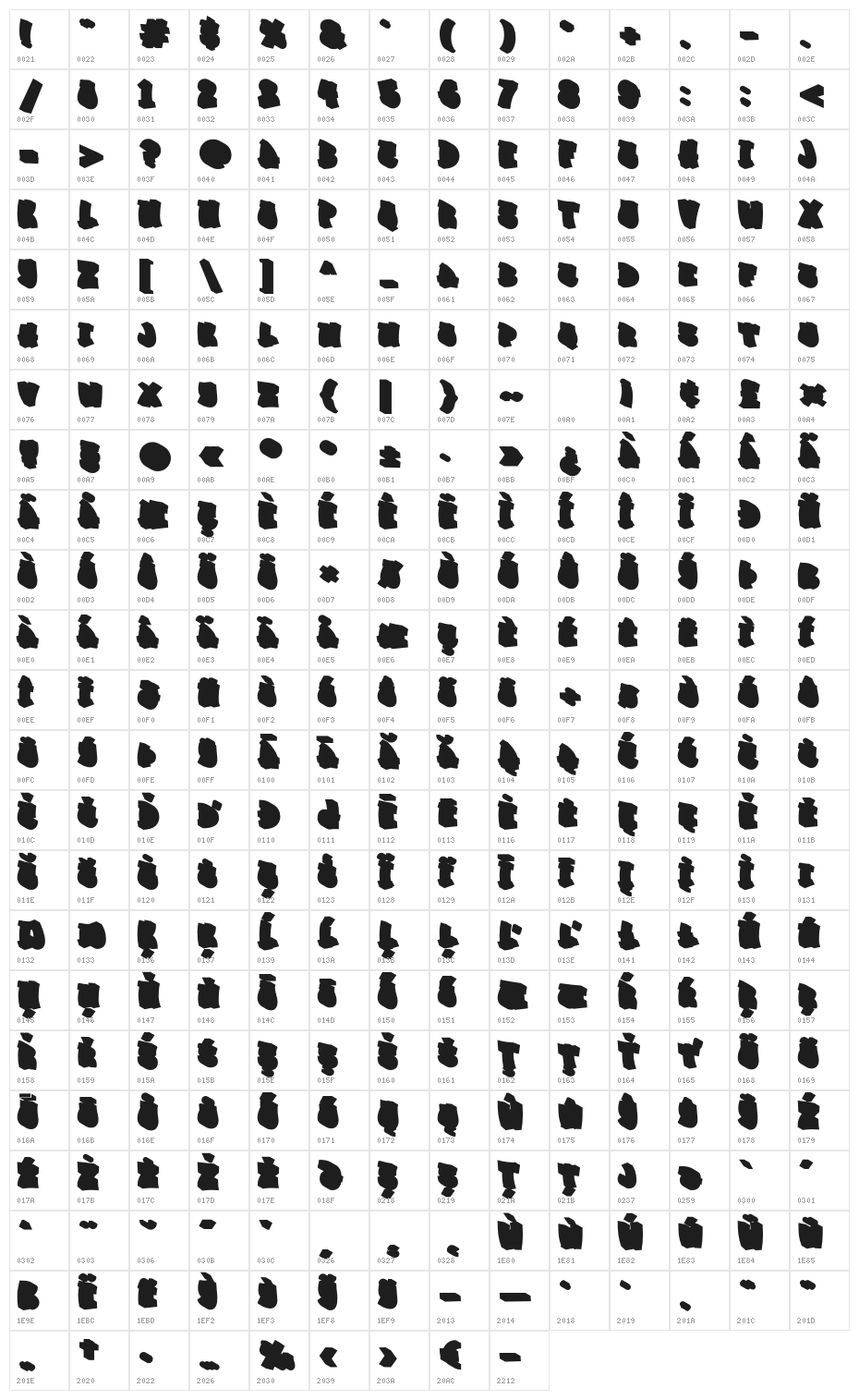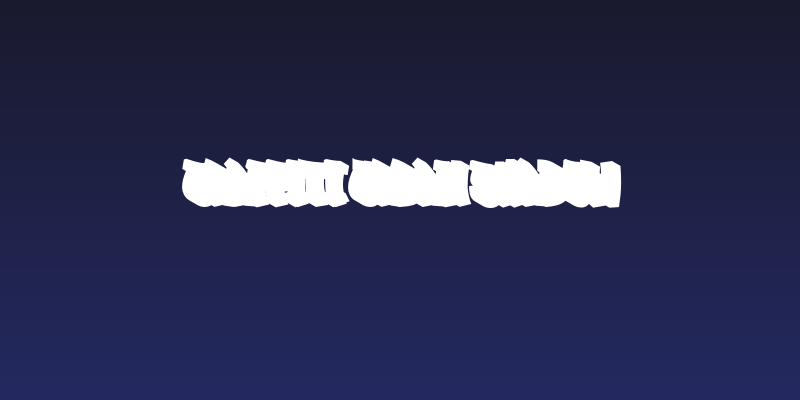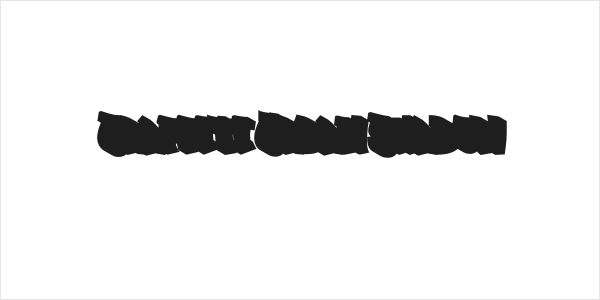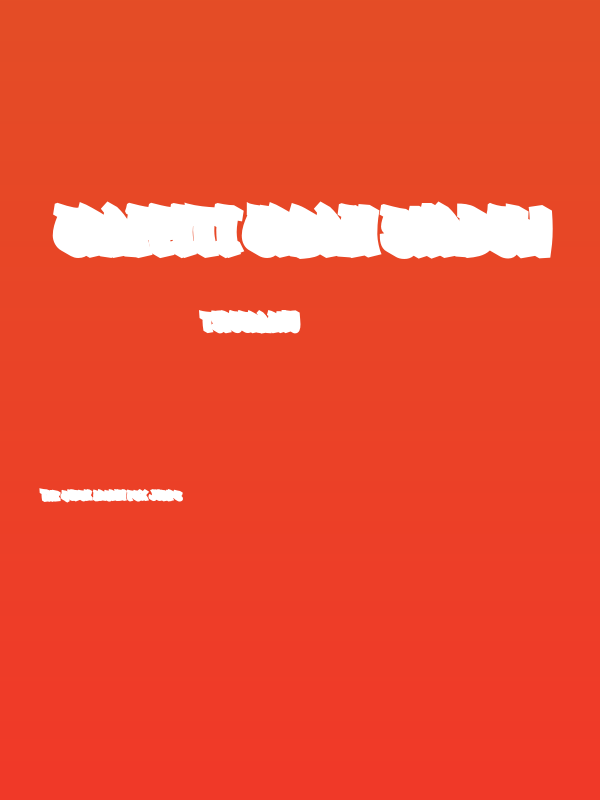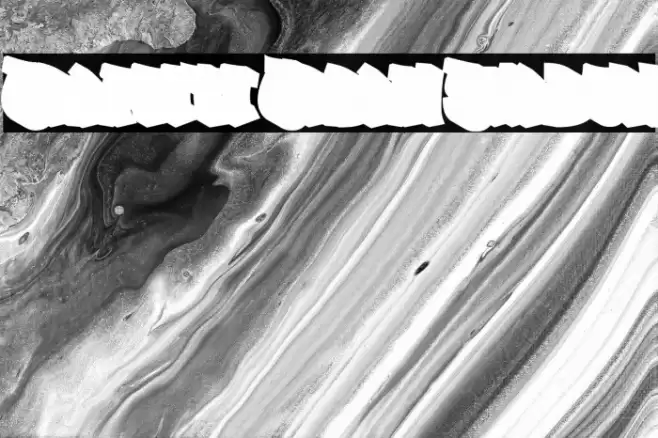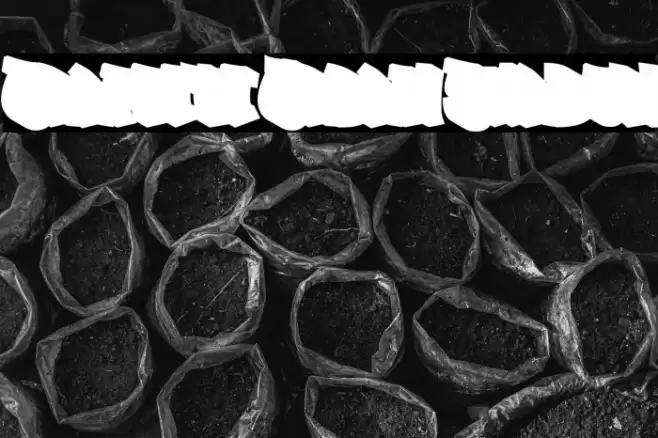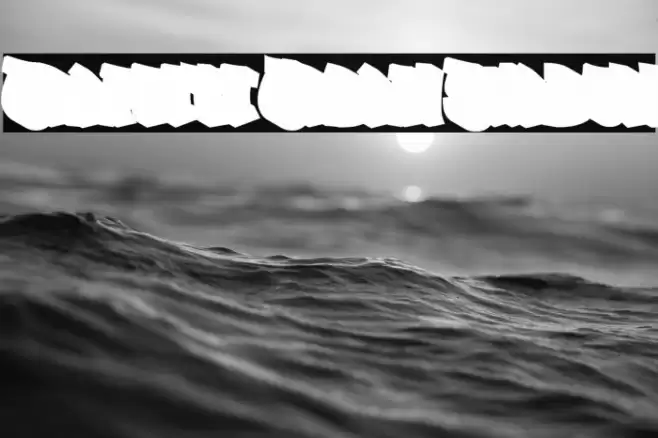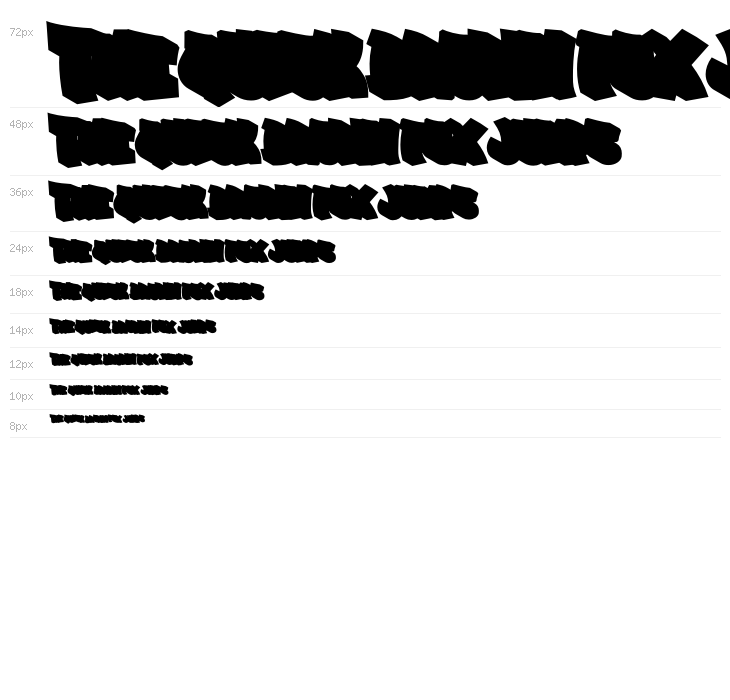
Graffiti Urban Shadow Font
Graffiti Urban Shadow Description
This font exudes an urban, graffiti-inspired style with bold, shadowed characters that create a striking visual impact. The letters are heavily stylized, featuring jagged edges and a three-dimensional effect that mimics the look of spray paint on a wall. The font's playful and rebellious nature is evident in its exaggerated forms and dynamic presence, making it ideal for projects that require a bold statement. The characters are tightly spaced, enhancing the cohesive and compact appearance of the text.
| Overall Style | Urban, Graffiti, Bold |
| Proposed Projects | Perfect for street art designs, urban-themed posters, music album covers, and edgy branding projects. |